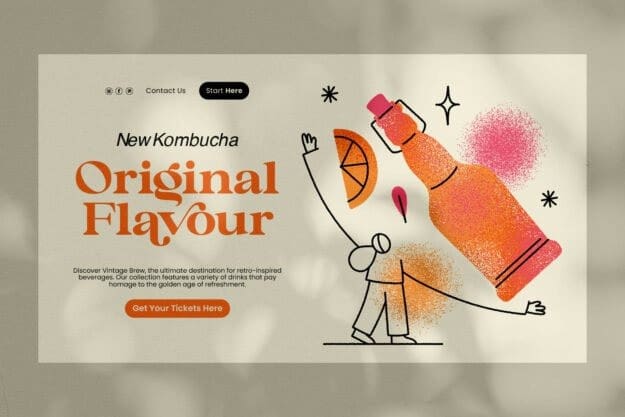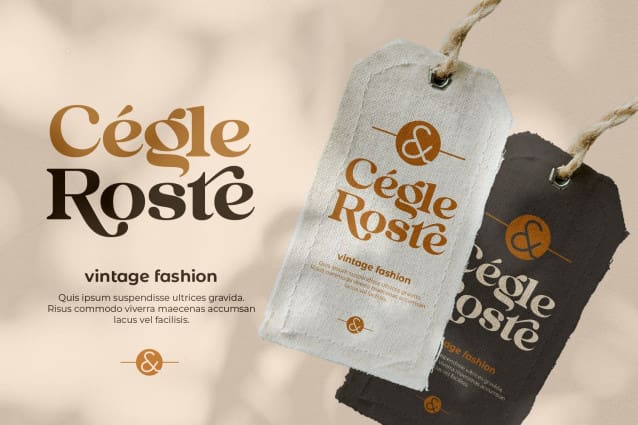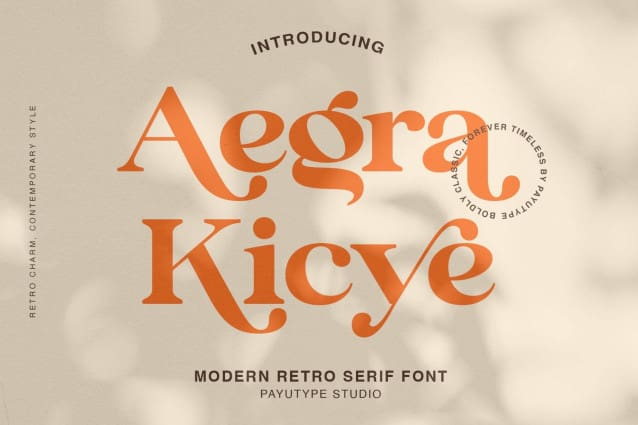
Aegra Kicye Font
Aegra Kicye Font is a modern retro serif font designed to capture the essence of contemporary style with a touch of retro charm. With sharp yet elegant lines, Aegra Kicye brings beauty that will enrich every word you display. Perfect for branding, invitations, book titles, or web design, Aegra Kicye is a choice that won’t disappoint. The boldness and finesse of this font will take your designs to the next level. every project becomes a work of art. Invest now and see how this font transforms the way the world views your designs.